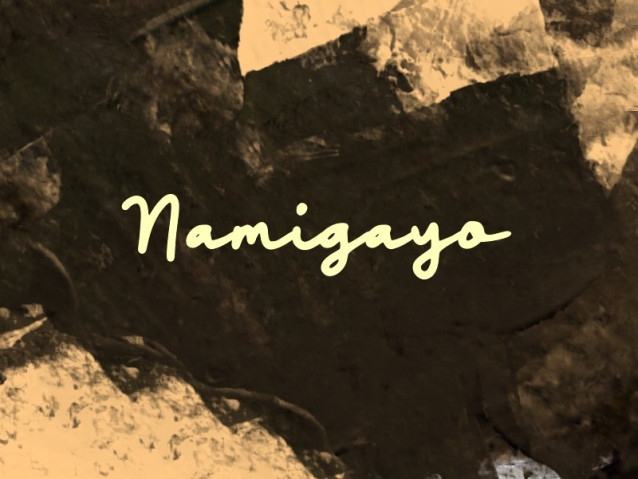
Namigayo Font
Namigayo Font is a simple and modern display font suitable for quotes, logos, headings, titles, and many more. Use it on any of your creative projects, and your designs will become outstanding!